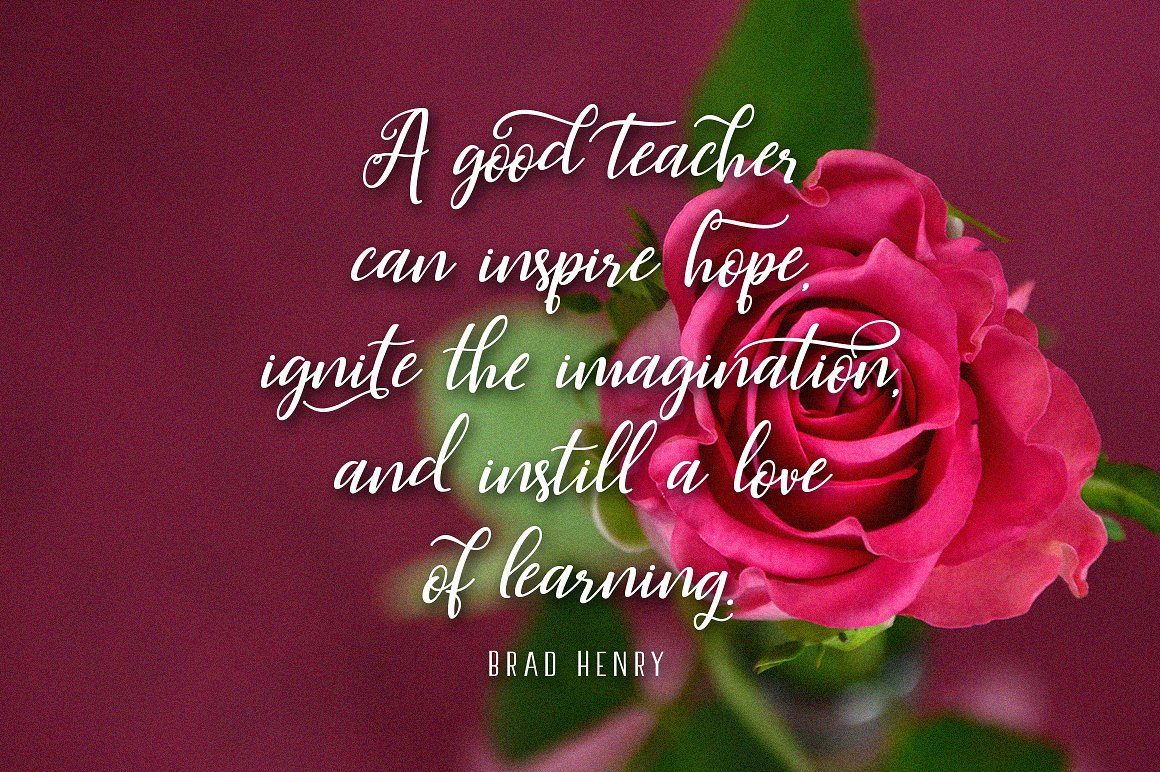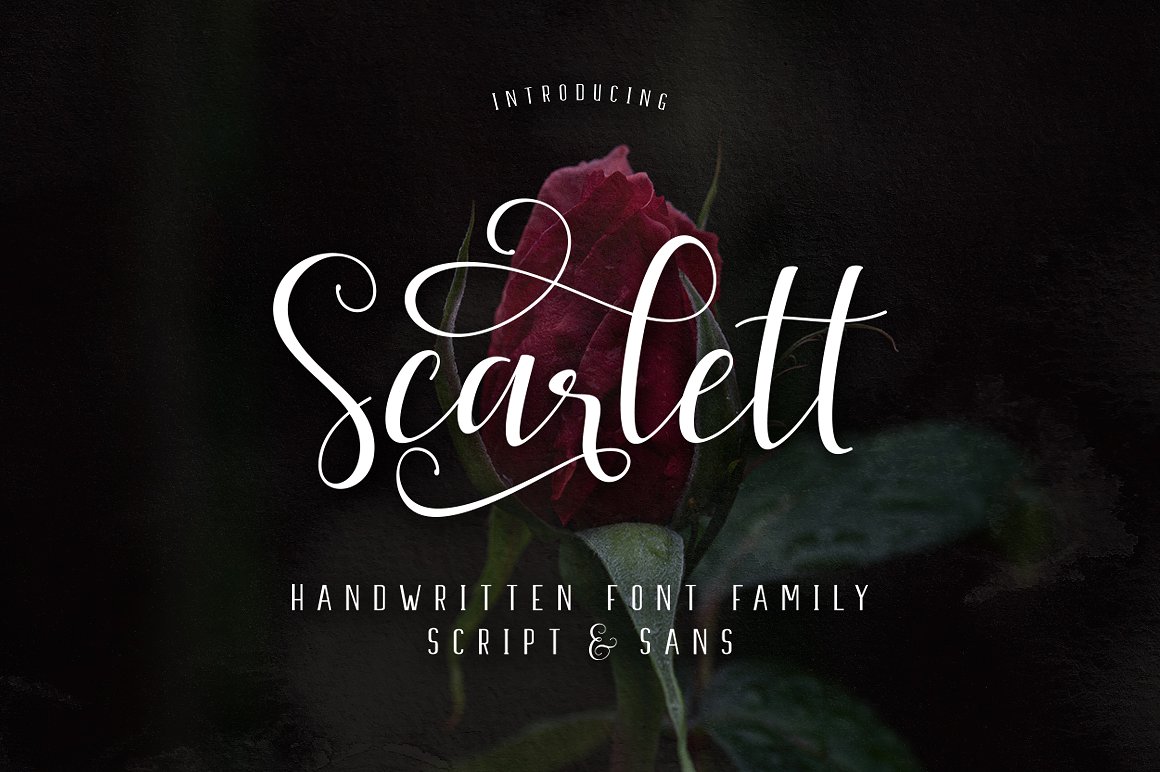
Scarlett Script
Scarlett Script Font
Scarlett Font Family modern script & Sans with a handmade calligraphy style, decorative characters and a dancing baseline! So beautiful on invitation like greeting cards, branding materials, business cards, quotes, posters, and more!!